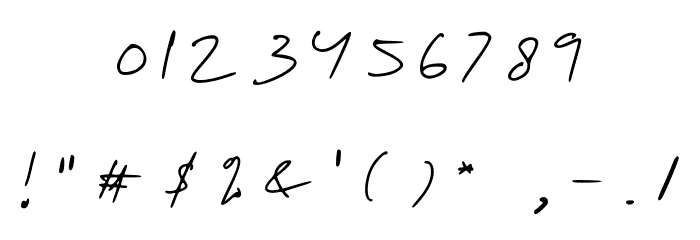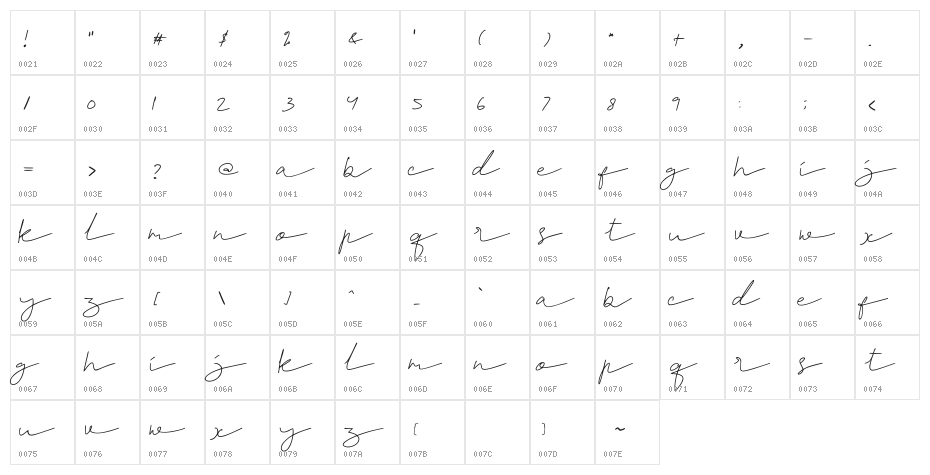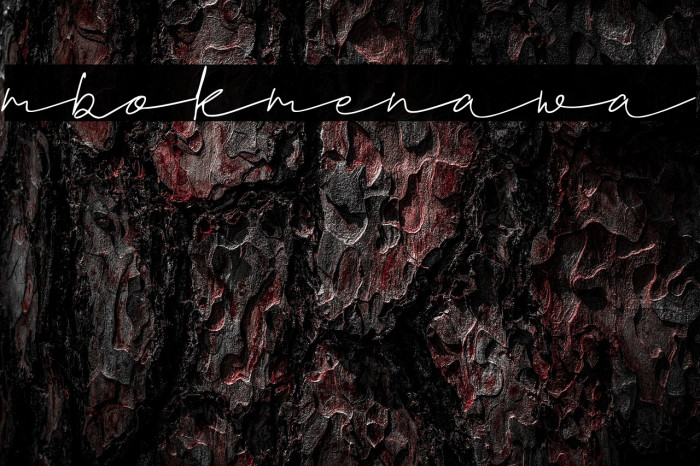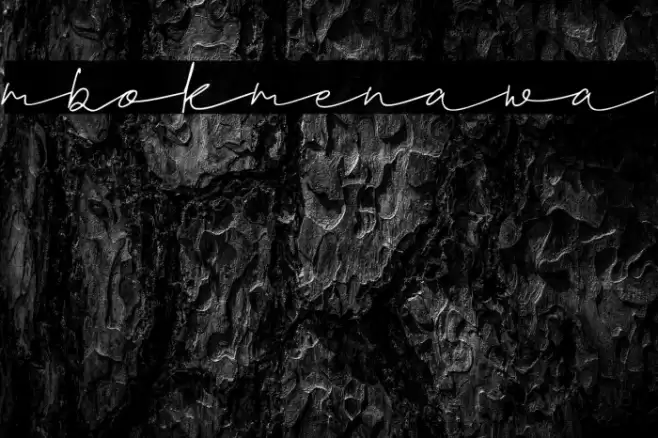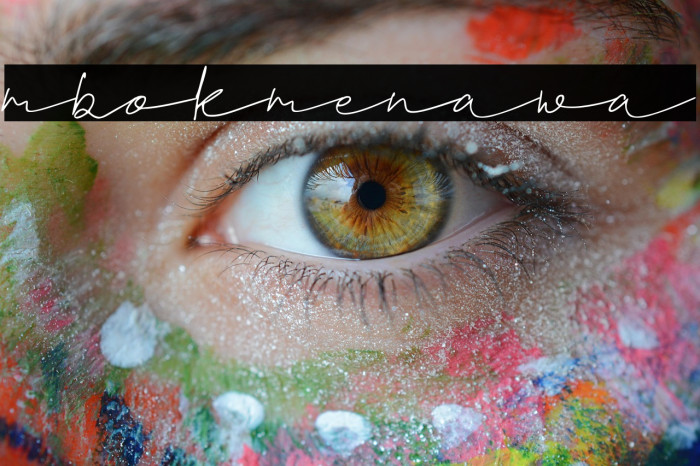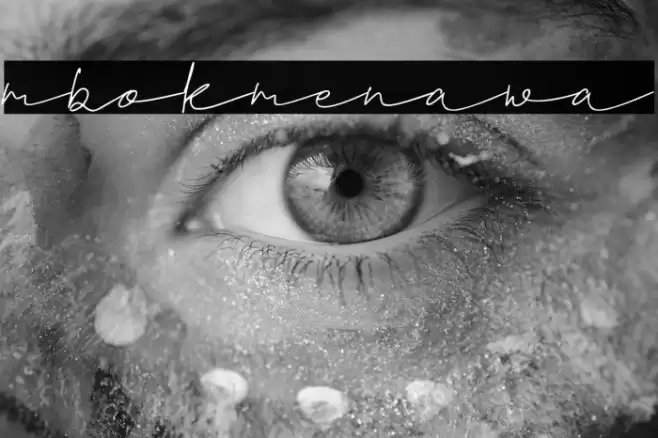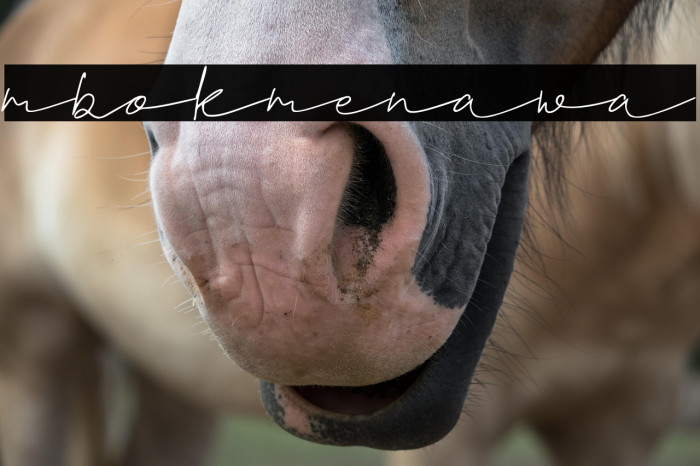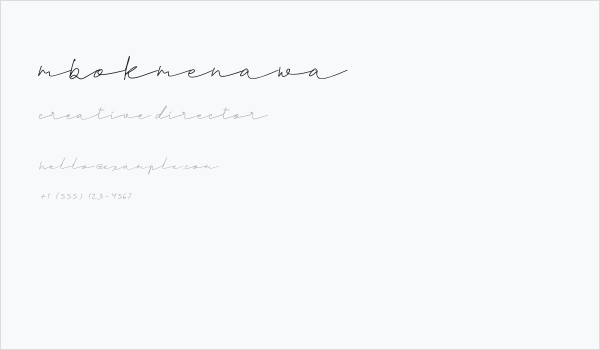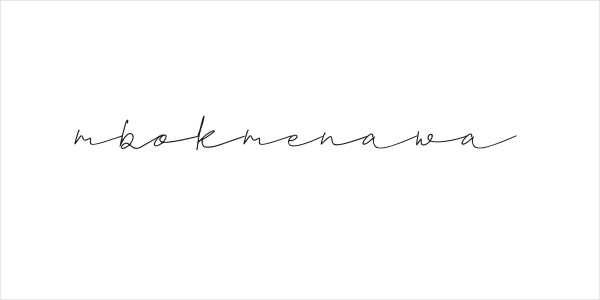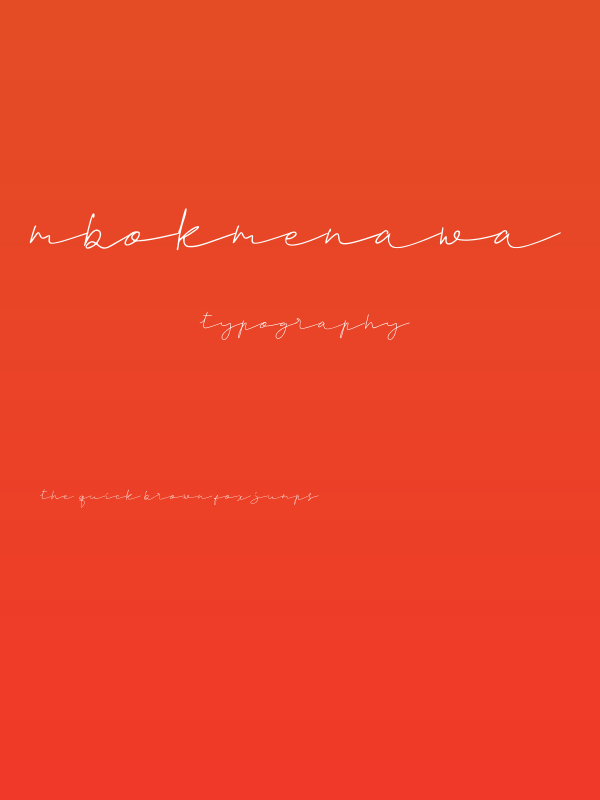
mbokmenawa Font
mbokmenawa Description
This font features a delicate, flowing script style that mimics elegant handwriting. The characters are connected in a fluid manner, creating a sense of continuity and grace. The strokes are thin and consistent, giving the font a light and airy appearance. The lowercase letters have a slight slant, enhancing the handwritten feel, while the uppercase letters maintain a similar style with a bit more prominence. The numerals and special characters are crafted with the same attention to detail, ensuring a cohesive look across all elements. This font is perfect for projects that require a personal touch, such as invitations, greeting cards, or branding materials.
| Use Case | Headlines, Invitations, Personal Branding |
| Proposed Projects | Ideal for wedding invitations, personal branding, greeting cards, and elegant stationery. |